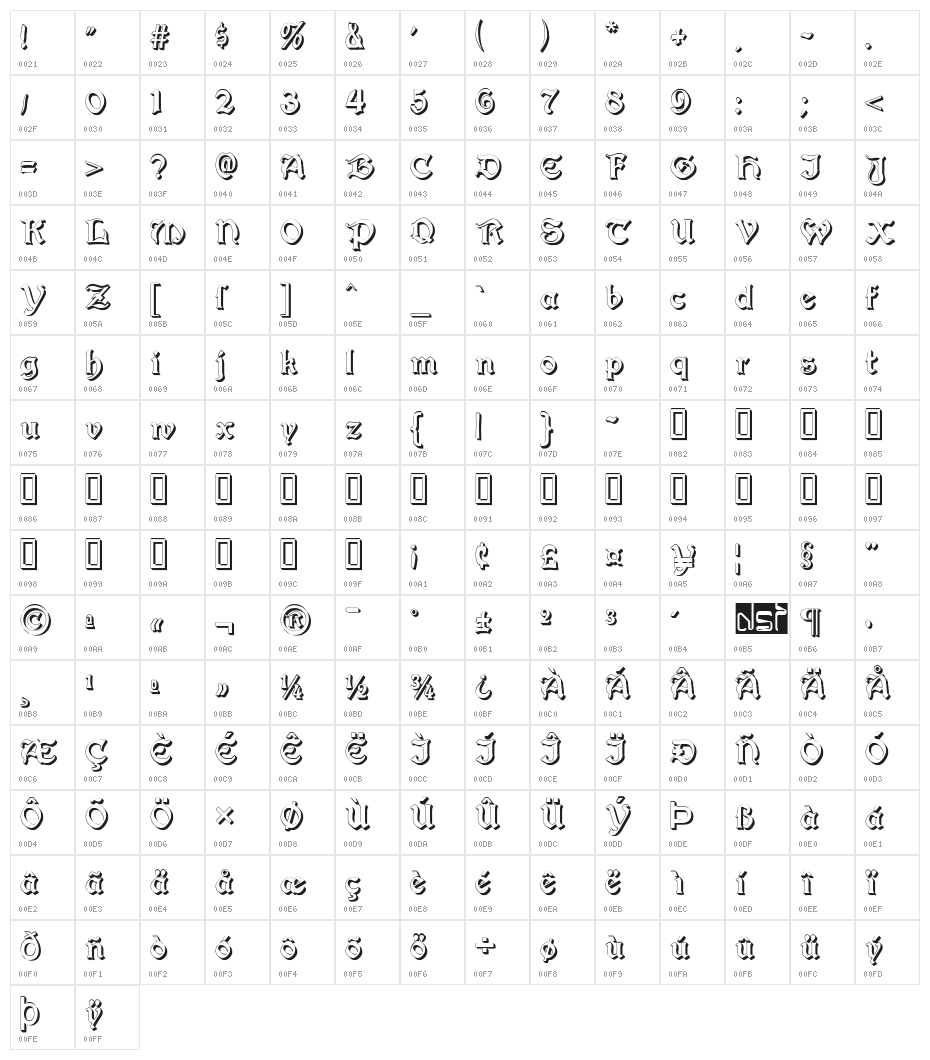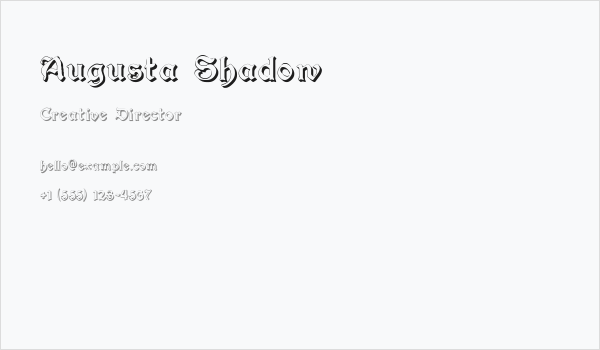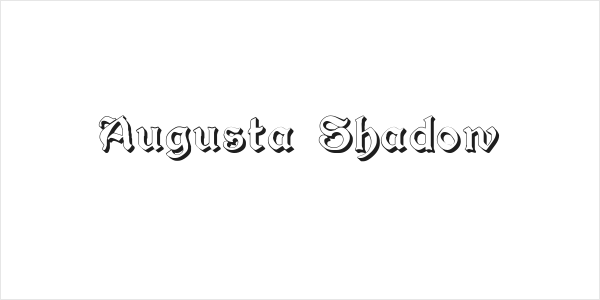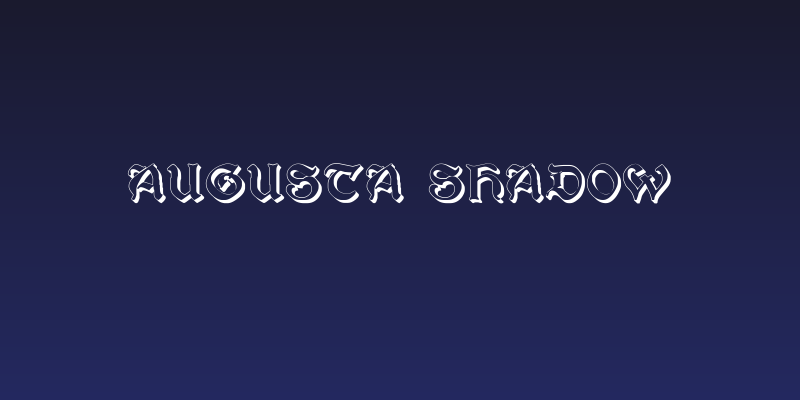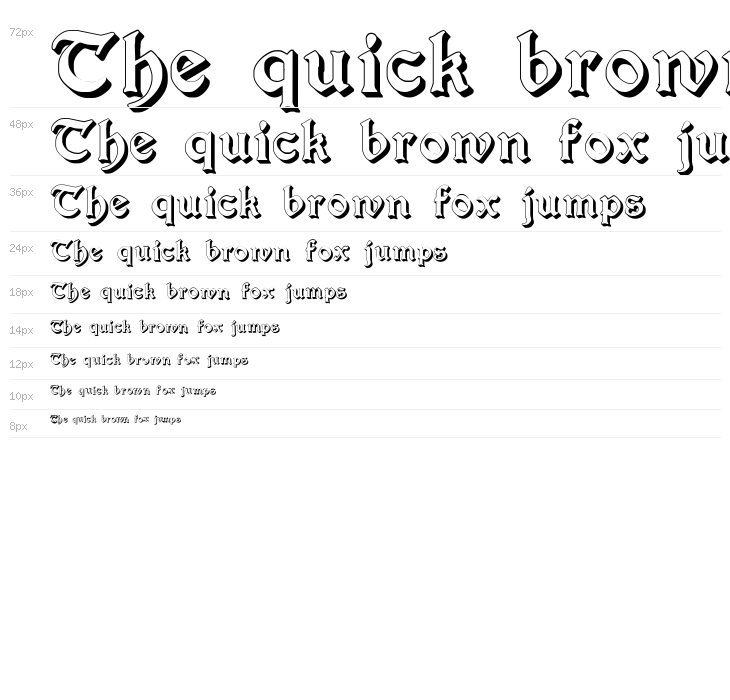
Augusta Shadow Font
Augusta Shadow Description
This font features a bold and dramatic style with a distinct shadow effect that adds depth and dimension to each character. The letters are reminiscent of traditional Blackletter typefaces, characterized by their ornate and angular forms. The uppercase and lowercase letters maintain a consistent style, with sharp edges and intricate detailing. The numerals and special characters are equally stylized, ensuring a cohesive look across all text elements. This font's unique shadowing gives it a three-dimensional appearance, making it stand out in any design.
| Use Case | Headlines, Logos, Decorative text |
| Proposed Projects | Ideal for vintage-themed posters, book covers, branding for gothic or medieval-inspired products, and decorative headlines. |